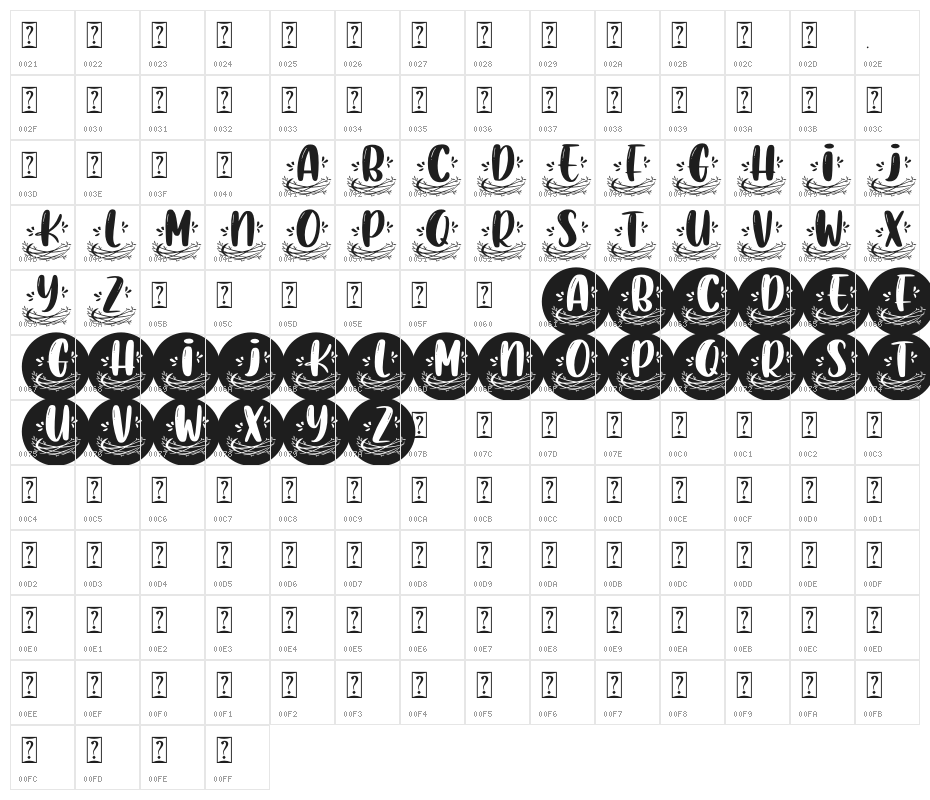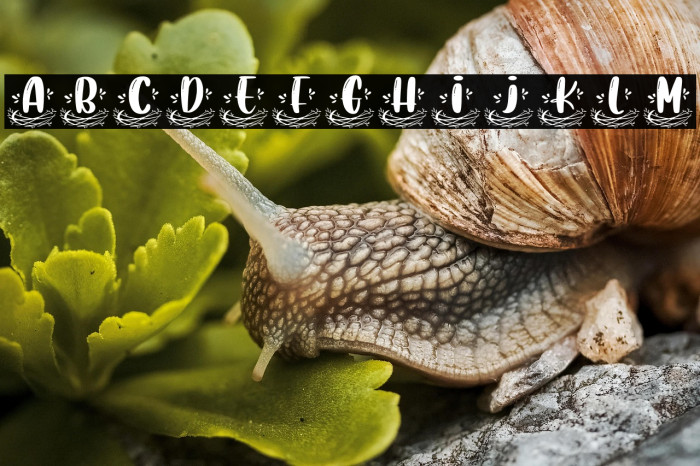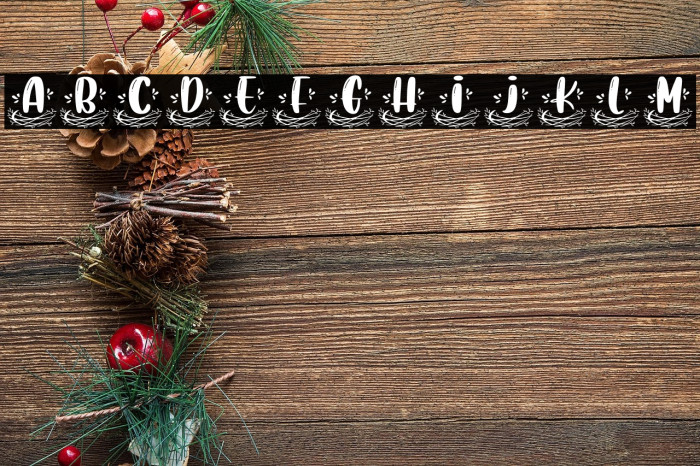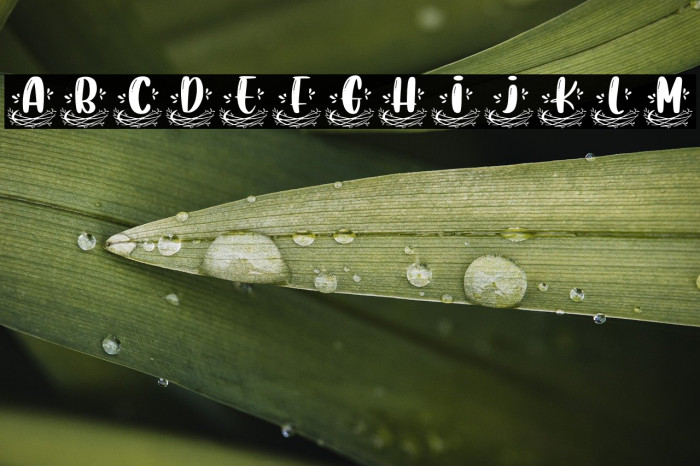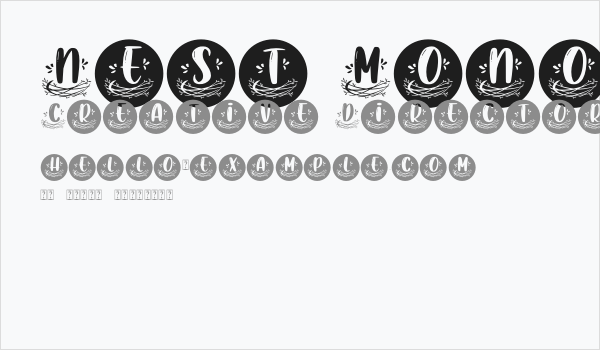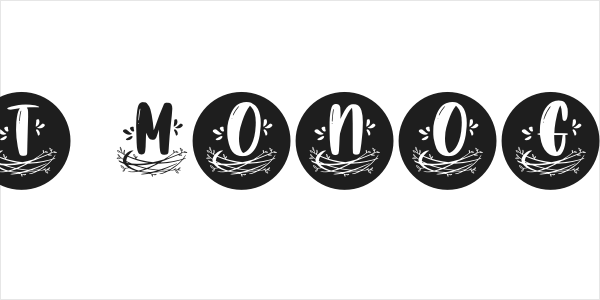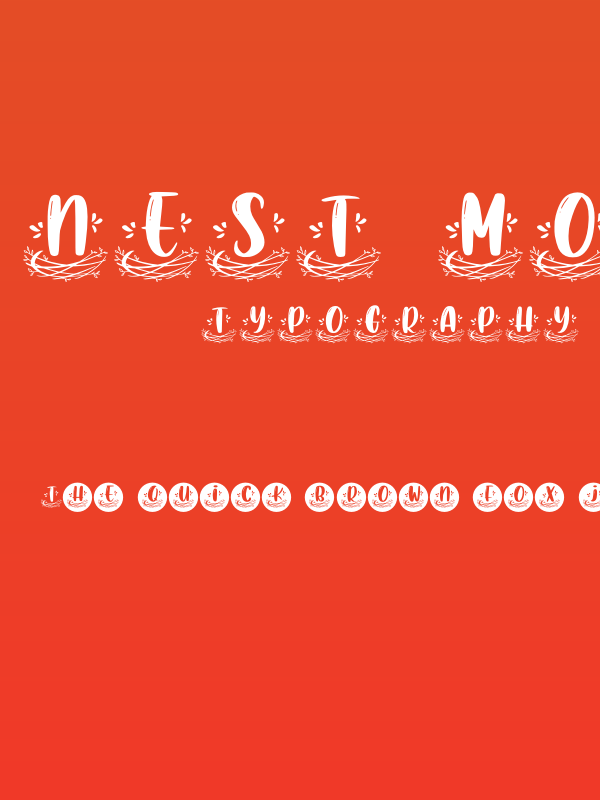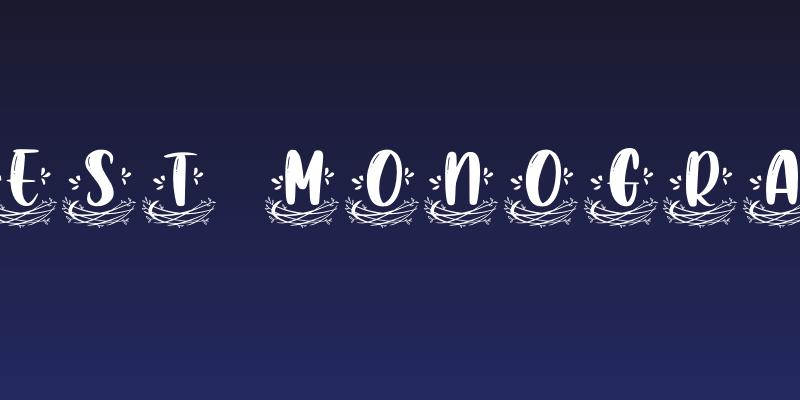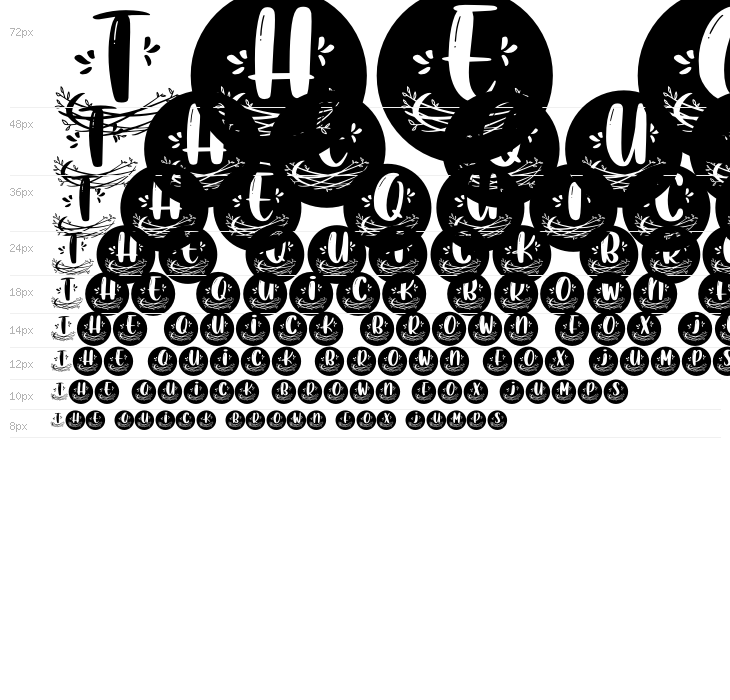
Nest Monogram Font
This font features a decorative and whimsical style, with each letter adorned with intricate, nest-like embellishments. The uppercase letters are bold and prominent, while the lowercase letters maintain a playful and artistic flair. The characters are encased in circular or rectangular frames, adding a unique touch to the overall design. The font is highly decorative, making it suitable for creative and artistic projects where a touch of elegance and uniqueness is desired.
| Use Case | Logos, Headlines, Decorative text |
| Proposed Projects | Ideal for wedding invitations, greeting cards, branding projects, and decorative monograms. |